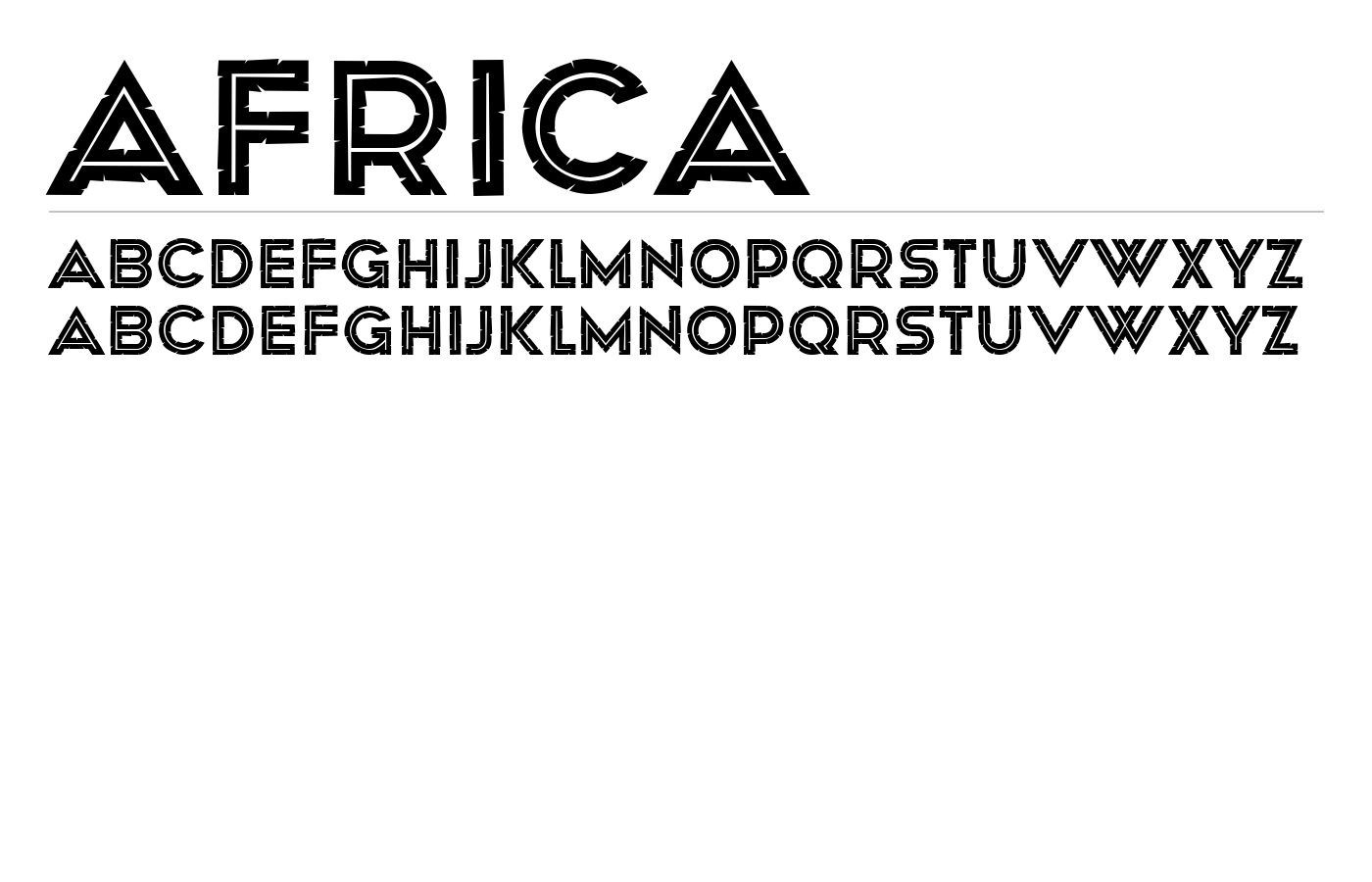
Africa Font is a bold, decorative sans serif typeface with a strong geometric structure and intricate tribal-inspired cutout patterns. Its sharp angles and textured details give it a distinct, adventurous vibe, making it perfect for eye-catching headlines, posters, and branding that seeks to convey cultural richness and boldness. This font works well in creative projects and packaging where a unique, energetic aesthetic is desired.
Africa Font
About Africa Font
| Font family | Africa Font |